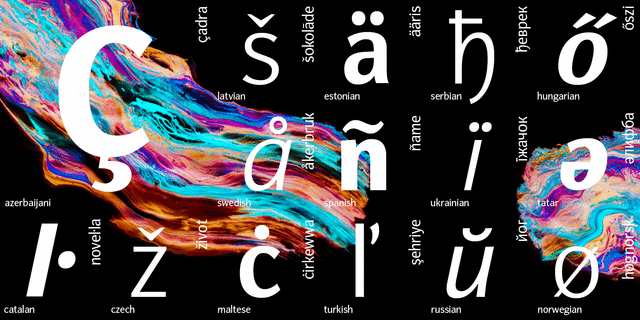
Nat Grotesk (14 fonts)
About Nat Grotesk family consists of 14 styles including 6 narrow ones. It has a half-closed sans serif design with simple and clear lettershapes. Due to compact proportions the face is very space saving, but nevertheless it is rather legible even in small sizes. The bold weights demonstrate increased contrast. The font is recommended for text and display typography as well as for headlines and advertising. It was designed by Natalia Vasilyeva and released by ParaType in 2007. The upgraded version with extended character set was released in 2009.
Nat Grotesk supports 84 languagesUkrainian, English, German, French, Polish, Portuguese, Spanish, French, Russian, Czech, Dutch, Italian, Swedish, Turkish, Finnish, Belarusian, Serbian, Bulgarian, Estonian, Lithuanian, Albanian, Afrikaans, Basque, Breton, Valencian, Galician, Gaelic (Scottish), Danish, Indonesian, Irish, Icelandic (Win), Karakalpak, Catalan, Norwegian, Occitan, Rhaeto-Romance, Sami Lule, Tswansky, Uzbek (Lat.), Faroese, Frisian, Chamorro, Estonian (Win), South Sami, Albanian (Win), Hungarian, Upper leprechauny, Karelian, Latvian (Mac), Lithuanian (Mac), Maori (Mac), Moldovan (Lat.), Lower Sorbian, Romanian (Win), Slovak, Slovenian, Turkmen (Lat.), Croatian (Win), Estonian (Mac), Kurdish, Latvian, Maori, Abazin, Avar, Agul, Adyghe, Darginsky, Ingush, Kabardino-Circassian, Kabardian, Karachay-Balkar, Kumyk, Lak, Lezghian, Macedonian, Mordovian-Moksha, Mordovian-Erzya, Nogai, Rutulian, Tabasaran, Tatar, Tsakhur, Chechen, Russian (XIX) Functions of font family Nat GroteskTypeface use in layout: